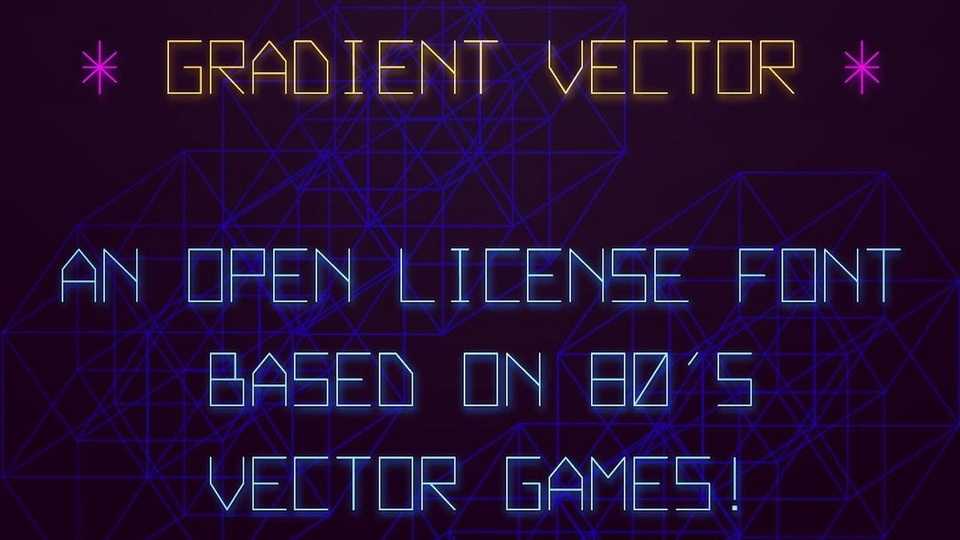
Download Gradient Vector font, a display typeface in the style of the 70s / 80s vector arcade games. Created for the Gradient Descent game, part of the I AM A.I. exhibition.